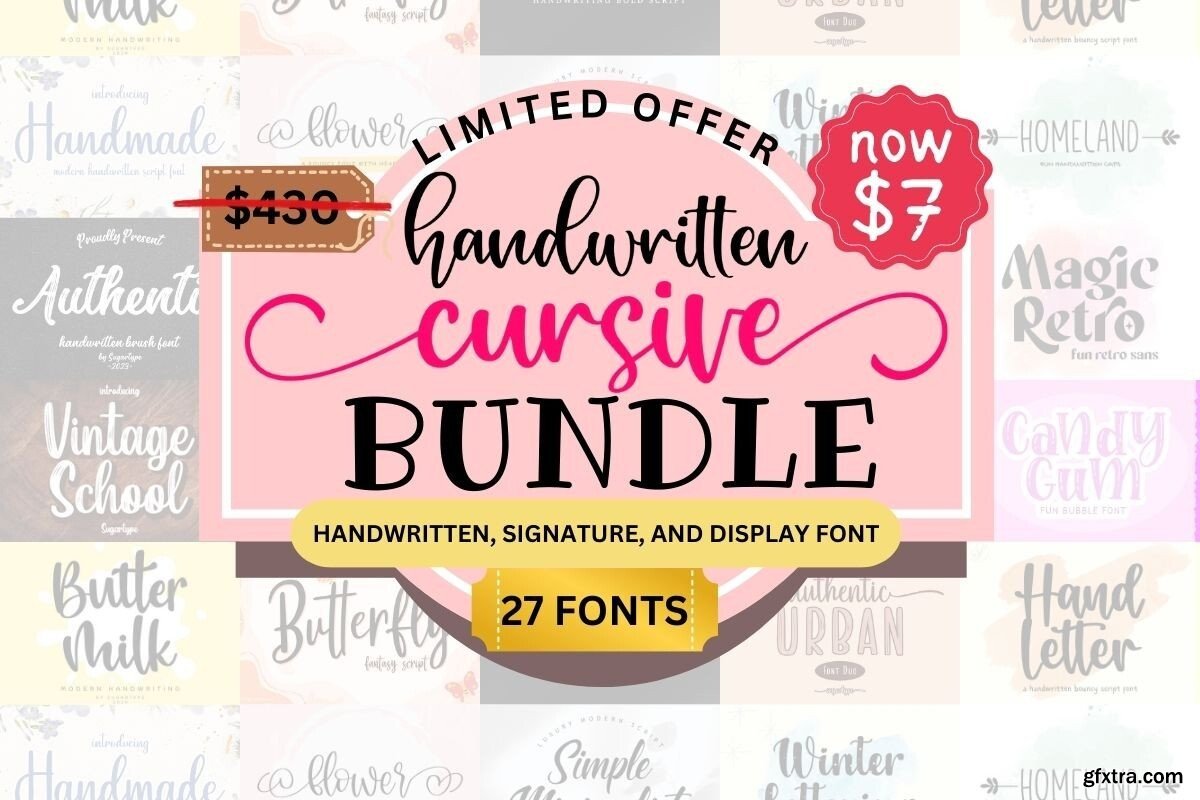
Cursive Handwritten Bundle
This bundle includes 27 quality fonts! In this bundle, you get all types of fonts, handwritten, tail or swash font, signature, display, and of course the bestseller fonts from the Fontlicious store.
Elevate your design with a lovely yet authentic touch. This bundle is perfect for any occasion like wedding invitations, t-shirts, mugs, tote bags, websites, headlines, and many custom crafts.